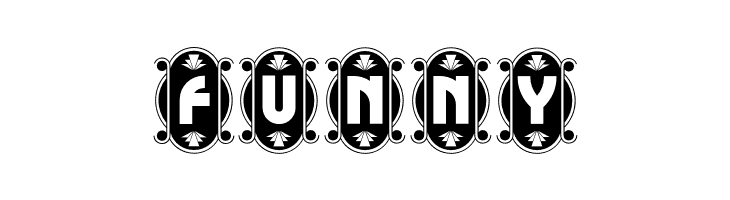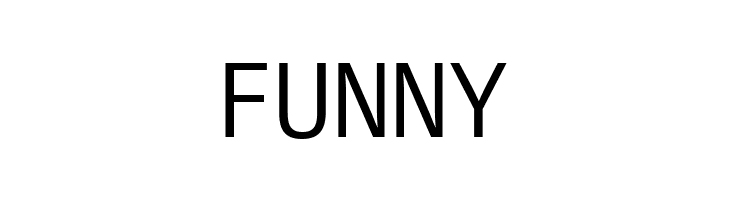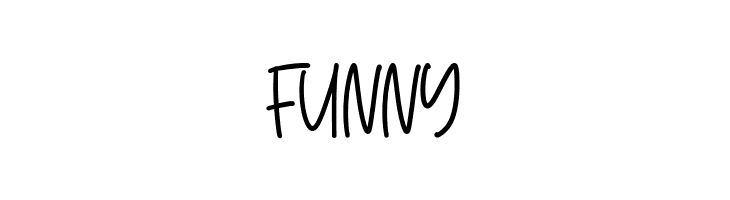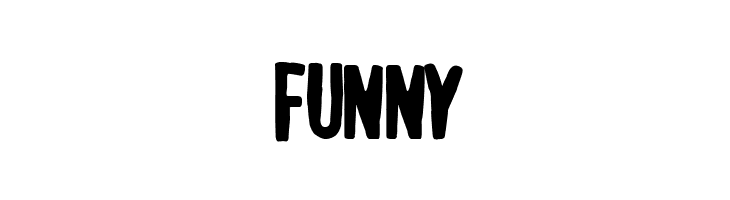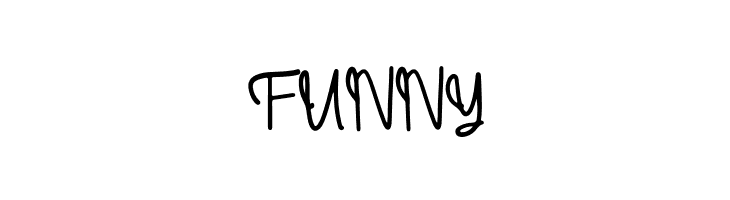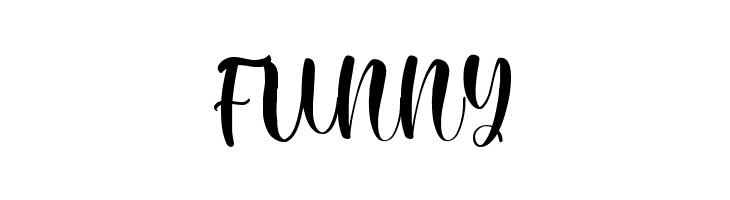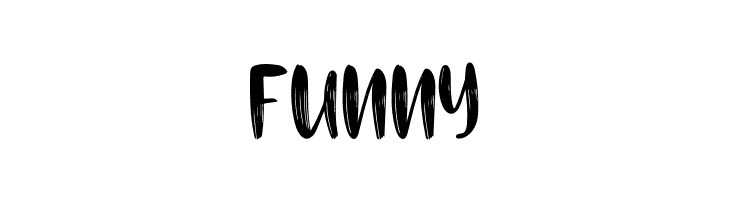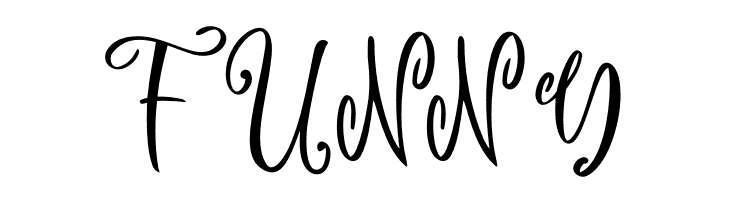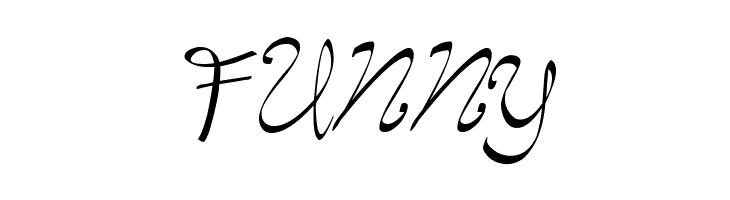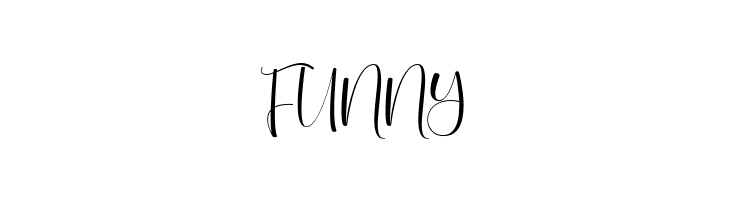
A modern, elegant script font with flowing, cursive characters.
A playful, casual handwritten font with a dynamic and informal style.
A flowing, cursive font with elegant, connected letters and a calligraphic style.
A graceful and elegant script font with flowing, cursive letterforms.
A playful, handwritten cursive font with a casual and energetic style.
A playful and elegant script font with flowing, cursive design.
A bold, playful font with a hand-drawn, dynamic style.
A playful, bold font with rounded, thick strokes and a friendly appearance.
A modern, elegant sans-serif font with clean lines and balanced structure.
A bold, decorative font with a vintage, three-dimensional style.
A bold, decorative font with ornate frames and a vintage flair.
A bold, decorative icon font featuring camera and photography motifs.
A bold, playful font with thick, irregular strokes and a hand-drawn feel.
An elegant script font with flowing curves and bold uppercase letters.
A bold, geometric font with a futuristic and technological style.
An elegant and flowing script font with graceful curves and sophisticated style.
A stylish, cursive script font with elegant, flowing lines.
A bold, expressive handwritten font with a brush-like texture.
A bold, cursive font with elegant loops and artistic flair.
A flowing, cursive font with elegant, sweeping lines and a hand-drawn appearance.
A graceful, cursive script font with elegant, flowing lines and high contrast.
A classic serif font with a modern touch, offering elegance and readability.
A casual, handwritten font with a dynamic and flowing style.
A bold, expressive handwritten font with brush-like strokes and dynamic forms.
An elegant script font with flowing, interconnected characters and a sophisticated style.
A modern, monospaced font ideal for coding and technical documents.
A modern, bold, italic monospaced font with medium contrast, perfect for coding.
A modern, monospaced italic font with medium contrast, ideal for coding.
A modern, monospaced font with clean lines and consistent spacing, ideal for coding.
A bold, abstract font with fluid, camouflage-like shapes.
A bold, abstract font with fluid, graffiti-like shapes.
An abstract, artistic font with bold, irregular shapes resembling camouflage patterns.
A bold, abstract font with organic, fluid shapes and a playful, chaotic style.
An abstract, artistic font with bold, organic shapes and a dynamic flow.
An abstract, bold font with fluid, organic shapes.